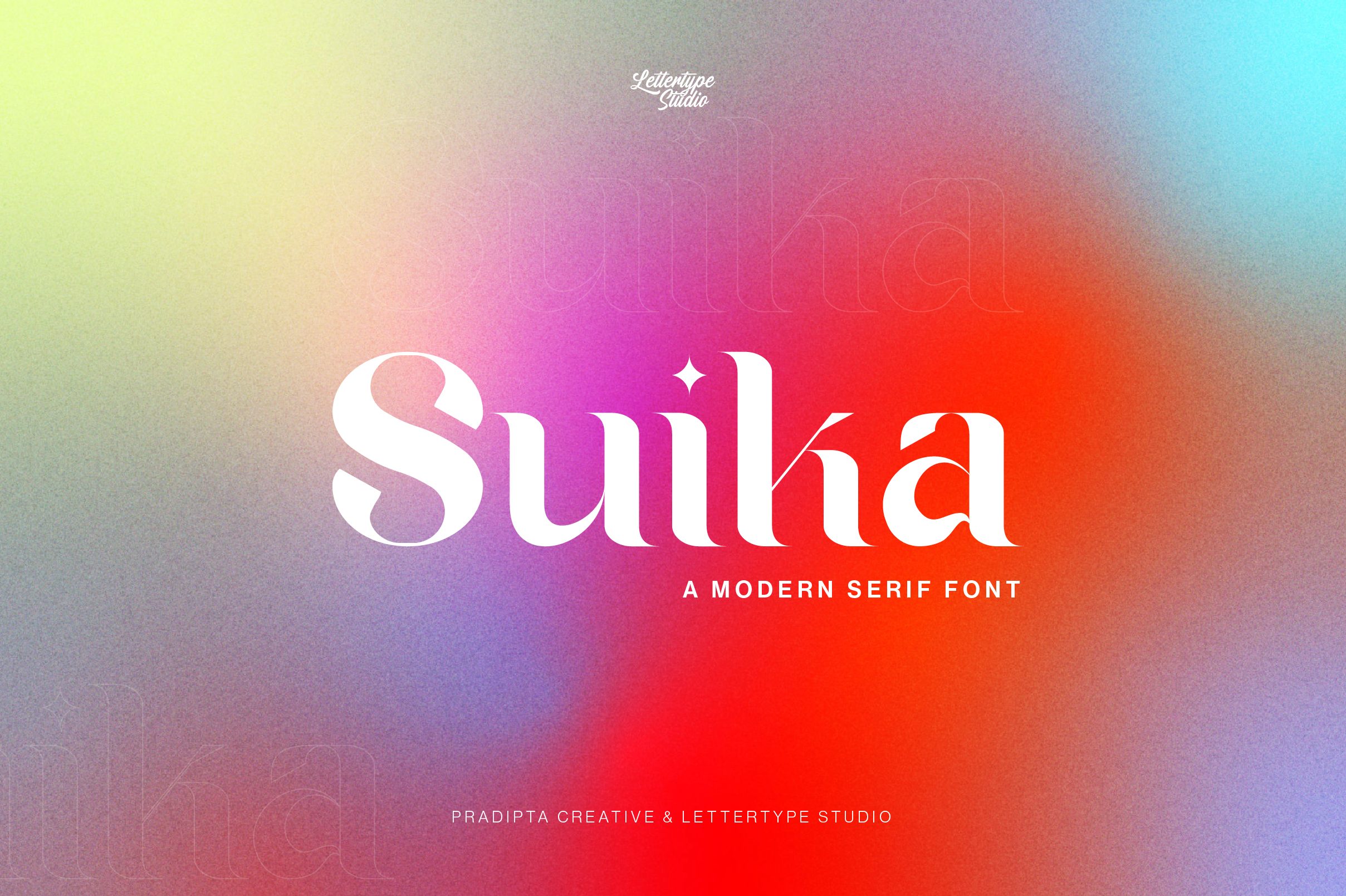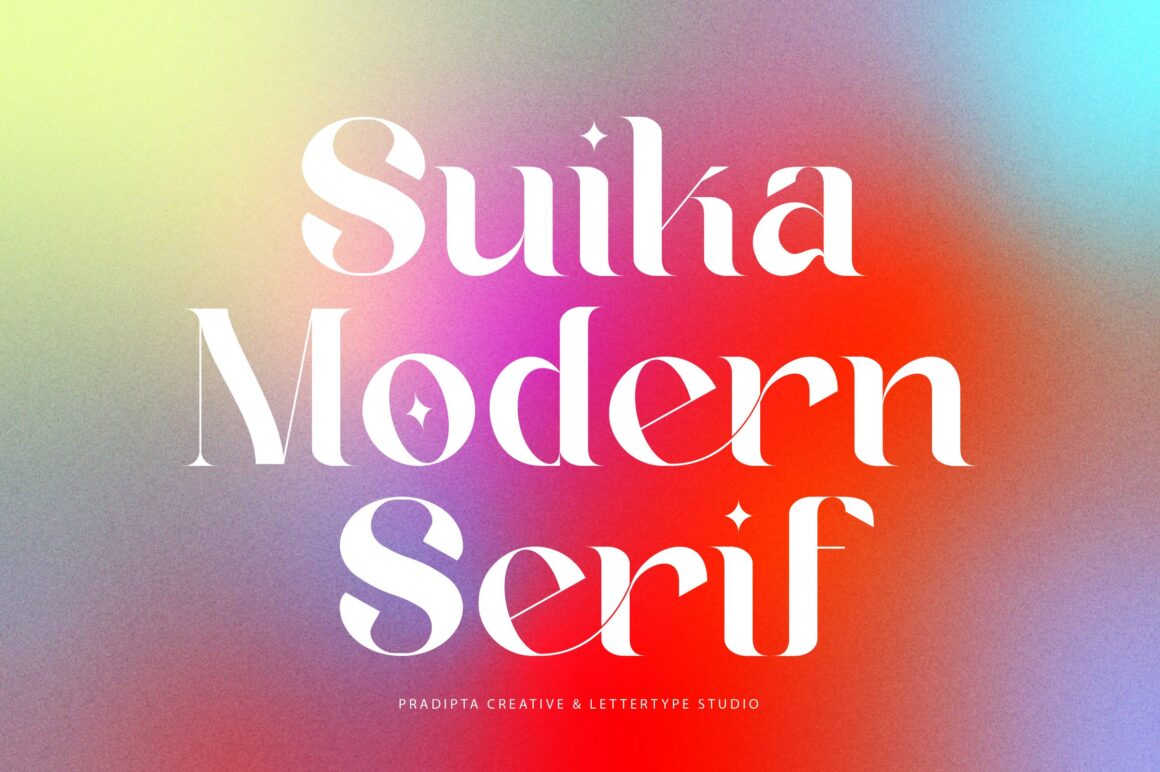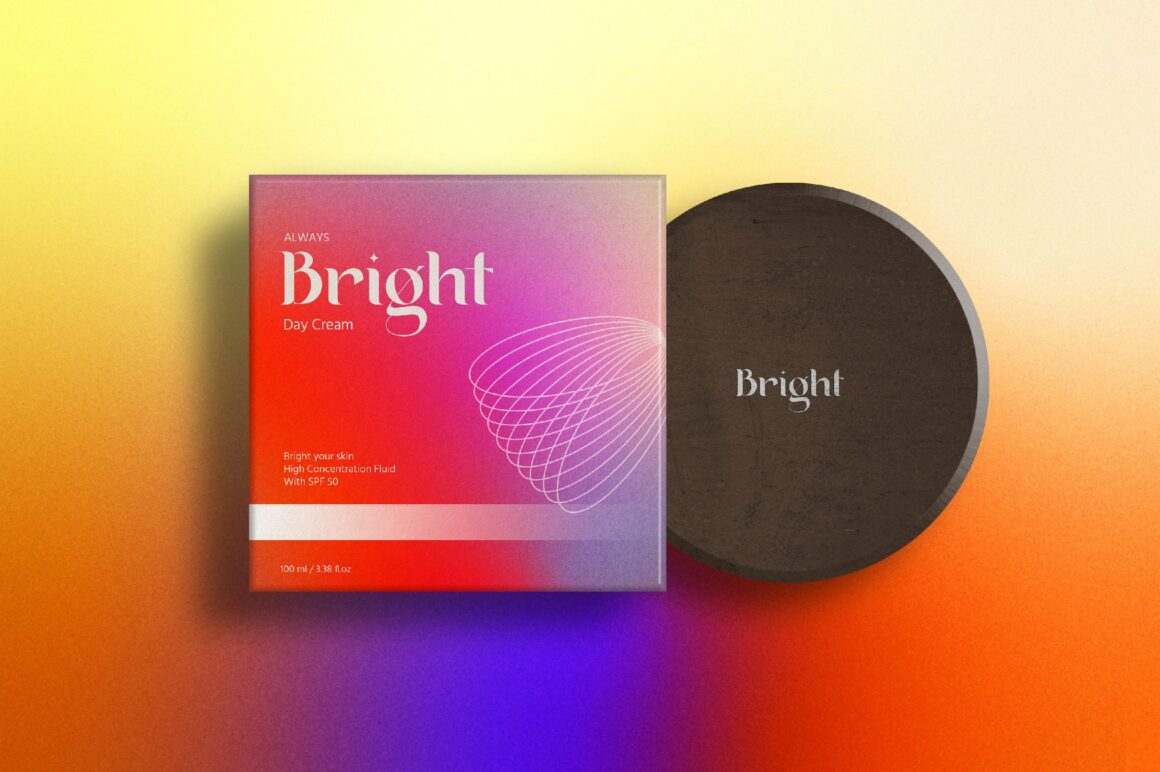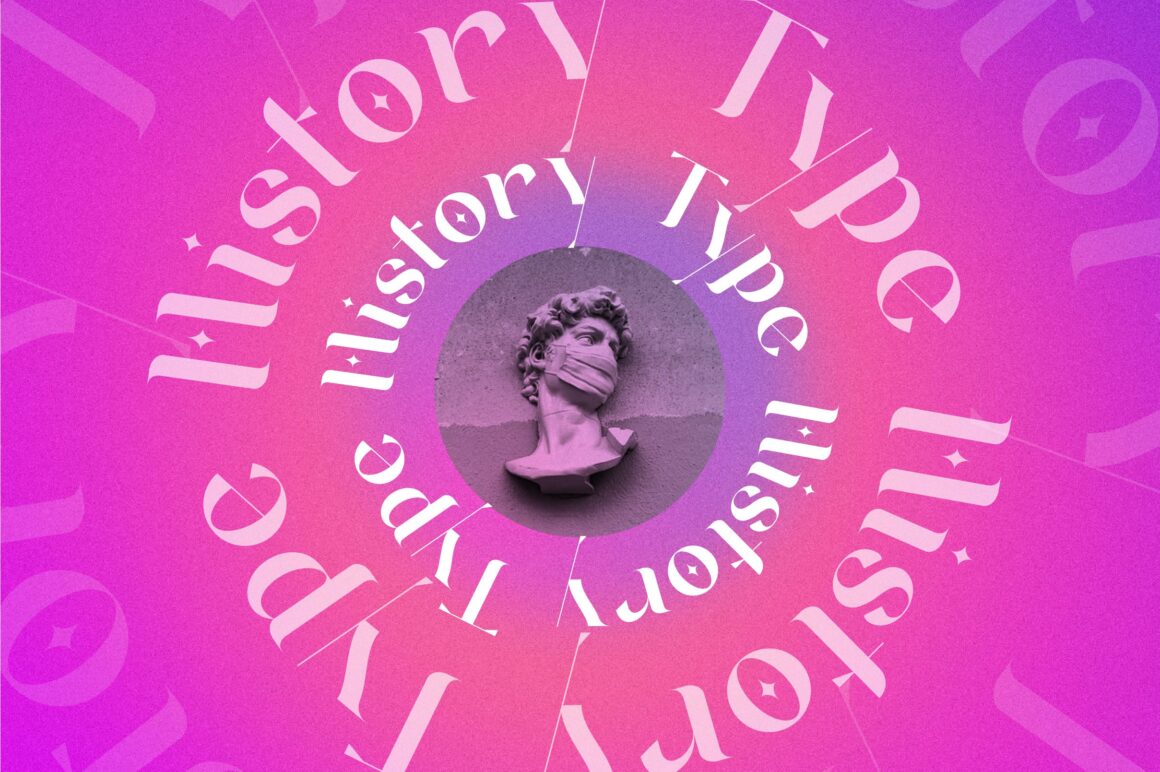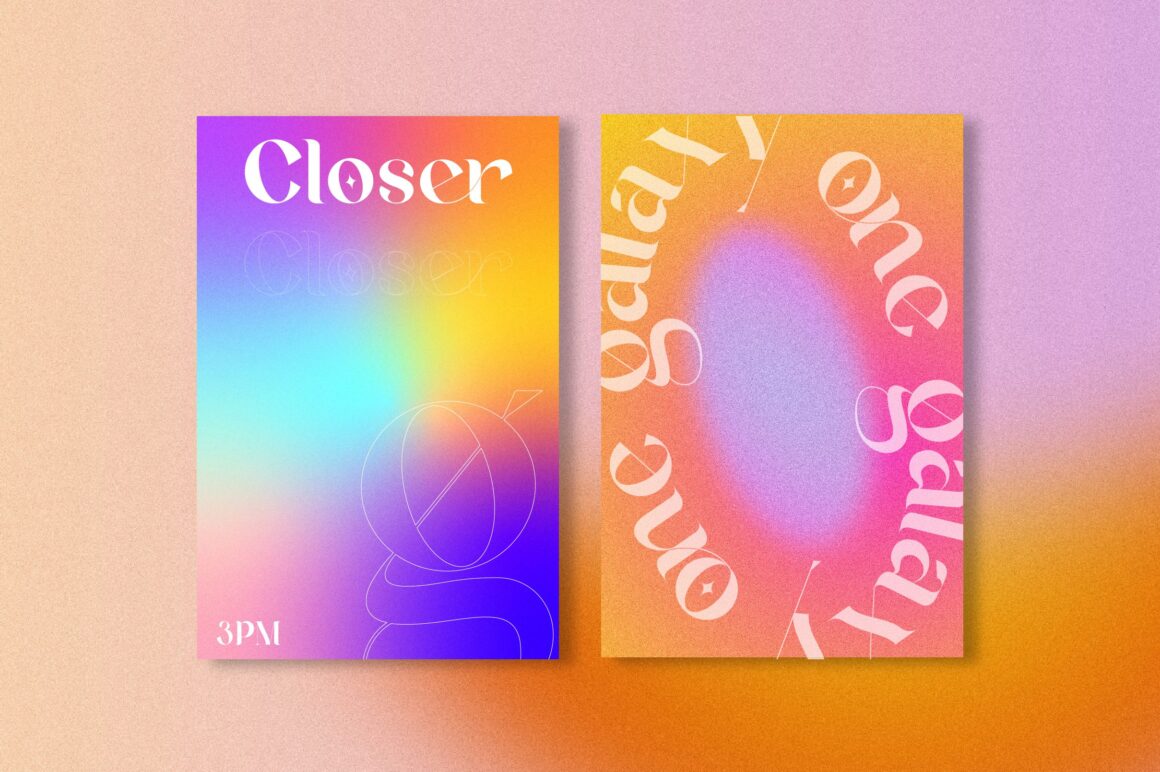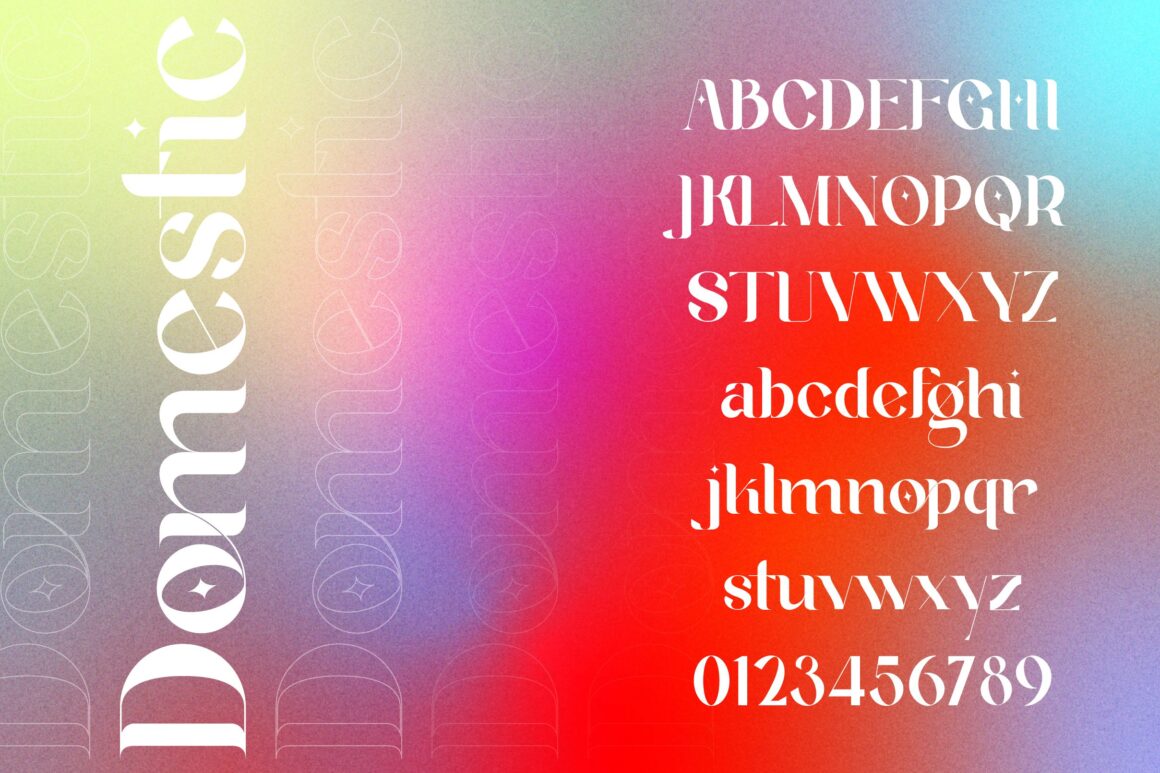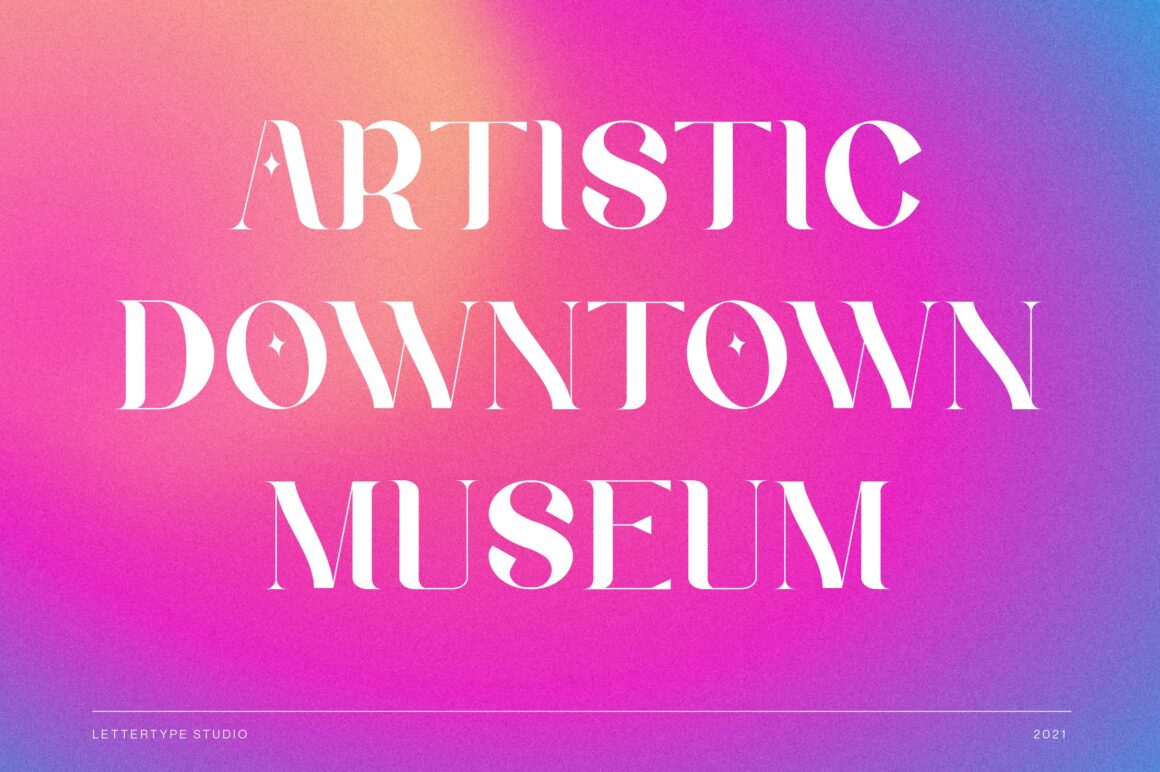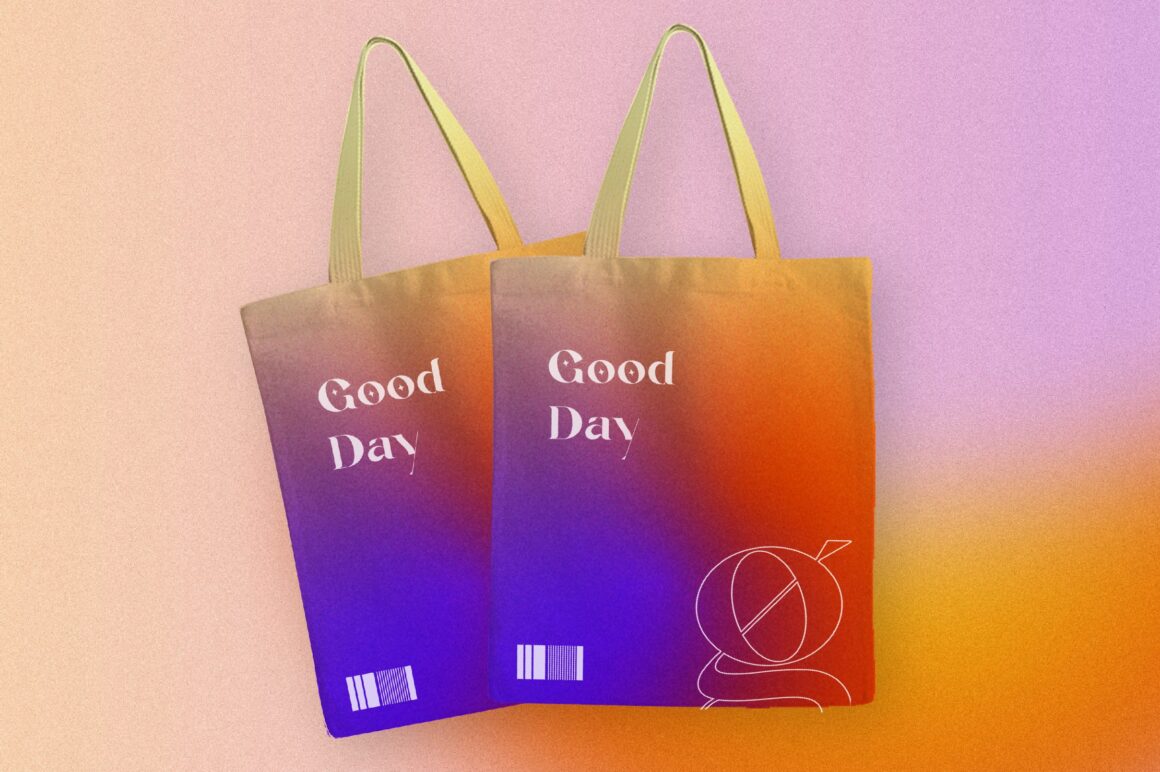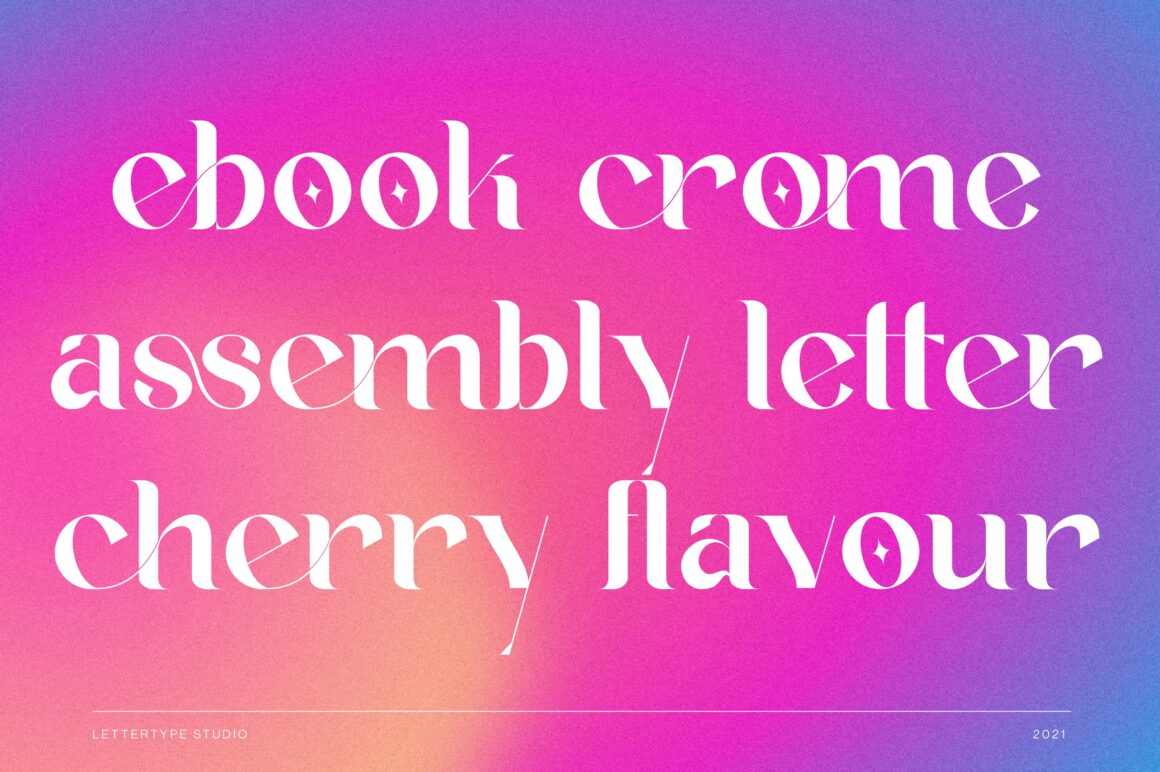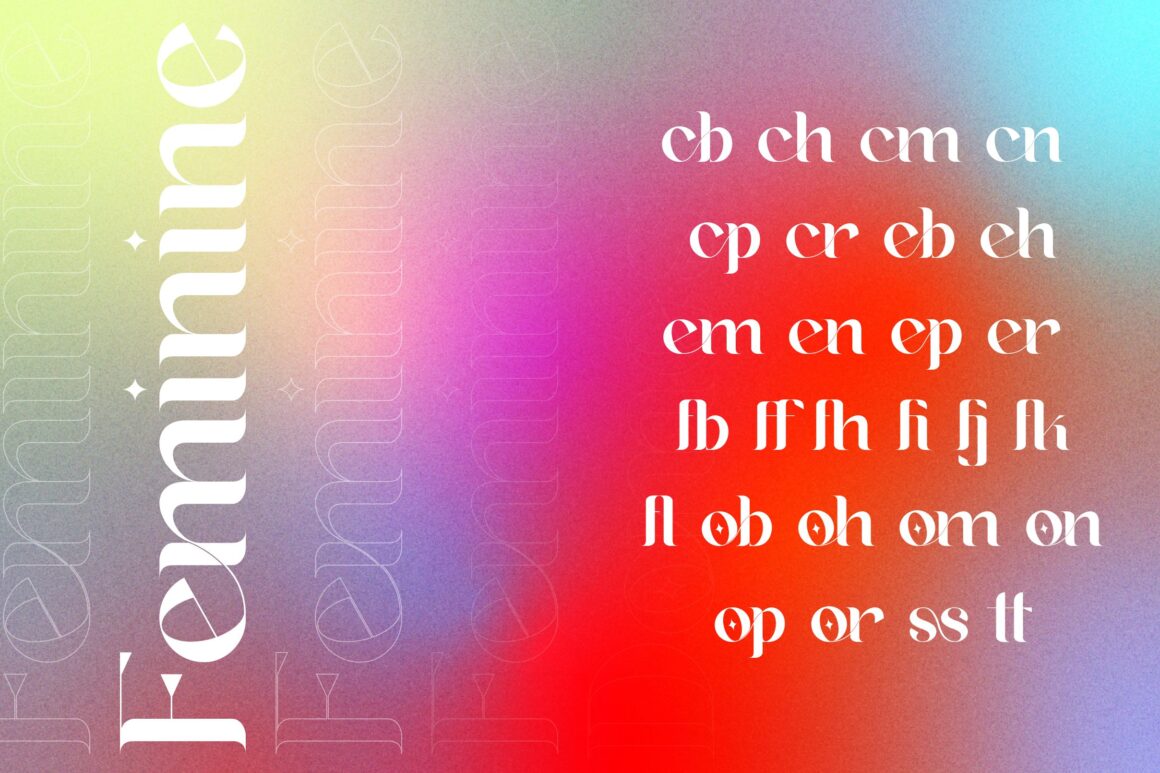
Modern Classic Serif Font
Suika
Suika Serif is a refined typeface that combines the strength of classic serif tradition with the freshness of modern and vintage style. Its elegant shapes and timeless appeal make it perfect for logos, branding, signage, apparel, posters, and wedding invitations, giving your designs both sophistication and versatility.
Crafted to bring balance and beauty to any project, Suika Serif adapts effortlessly across creative fields. Whether you want a sleek contemporary edge or a nostalgic vintage vibe, this font elevates your work with elegance, clarity, and personality.
Suika Features:
• 1 Styles
• Upright style
• 27 Stylistic Ligature